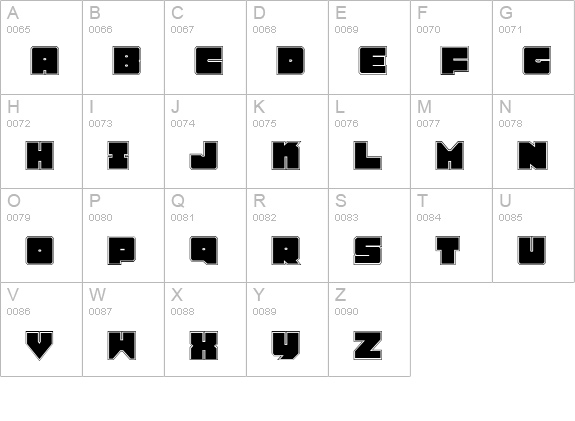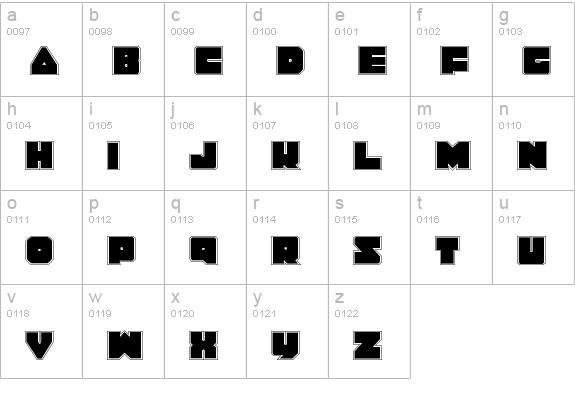
Lobo Tommy Pro Font Details
Lobo Tommy Pro font is a striking display typeface that exudes a sense of modernity and sophistication. With its bold letterforms and sharp edges, this font is perfect for making a statement in any design project. The sleek and stylish look of Lobo Tommy Pro font makes it ideal for branding, advertising, and graphic design. What's even better is that Lobo Tommy Pro font is available for free download at FontsMarket.com. This means you can easily access this versatile and eye-catching font to elevate your creative projects without any cost. Don't miss out on this opportunity to add a touch of elegance and flair to your designs with Lobo Tommy Pro font.